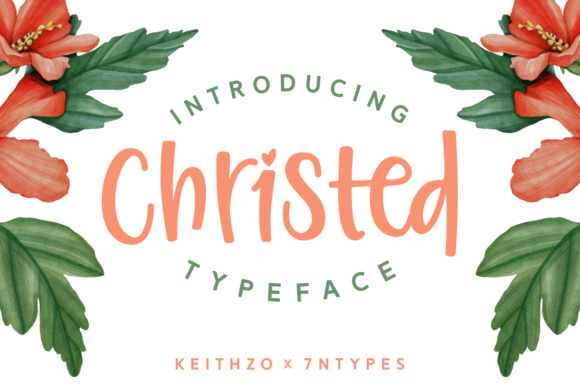
Prepare yourself to be captivated by Christed, the modern script font that exudes playfulness and readability! This masterpiece by Keithzo (7NTypes) will infuse your designs with a fun, contemporary flair that is sure to turn heads.
Unleash your creativity with Christed's bold letters, meticulously crafted to ensure exceptional readability. Its playful touch adds a hint of whimsy, making it the perfect choice for those seeking a font that is both stylish and functional.
With Christed, you have a font that seamlessly adapts to a wide range of design projects. Its versatility allows you to effortlessly create eye-catching logos, stylish invitations, captivating social media posts, and stunning website designs. Let your imagination soar as you explore the endless possibilities that Christed presents.
Picture this: Your designs come to life with the bold strokes of Christed, captivating your audience with its playful charm. Your logos exude a sense of professionalism and creativity, leaving a lasting impression on potential customers.
Your invitations and social media posts emanate warmth and personality, enticing your readers to engage with your content. From birthday celebrations to special events, Christed adds a touch of elegance that elevates your messages.
Step into the world of Christed and discover a font that captivates and inspires. Its modern design and playful spirit make it the perfect choice for those seeking a font that is both stylish and functional.
Let Christed be your creative partner, guiding you towards captivating designs that leave an unforgettable mark on your audience. Its bold letters and playful touch will transform your designs into works of art, leaving your audience mesmerized.